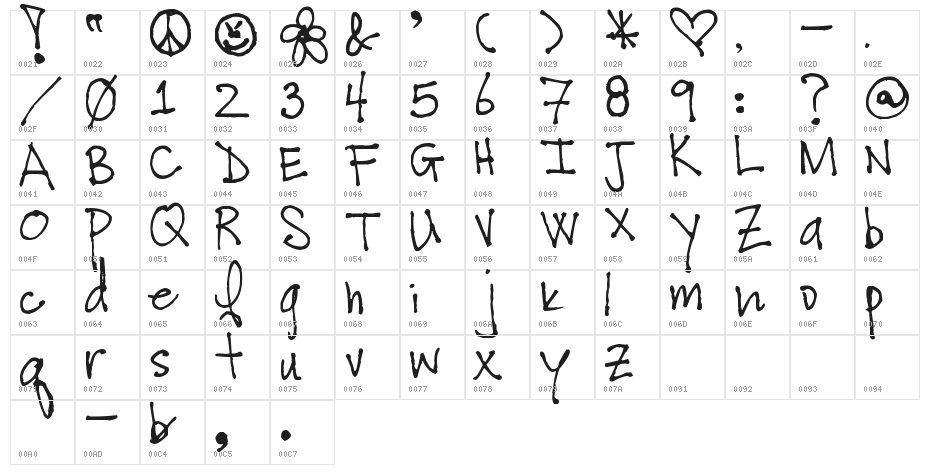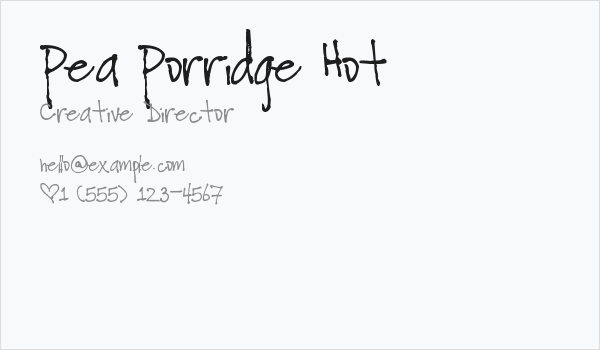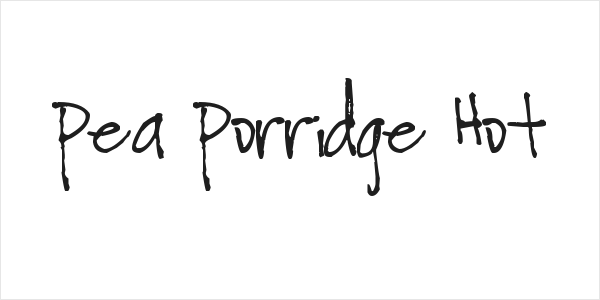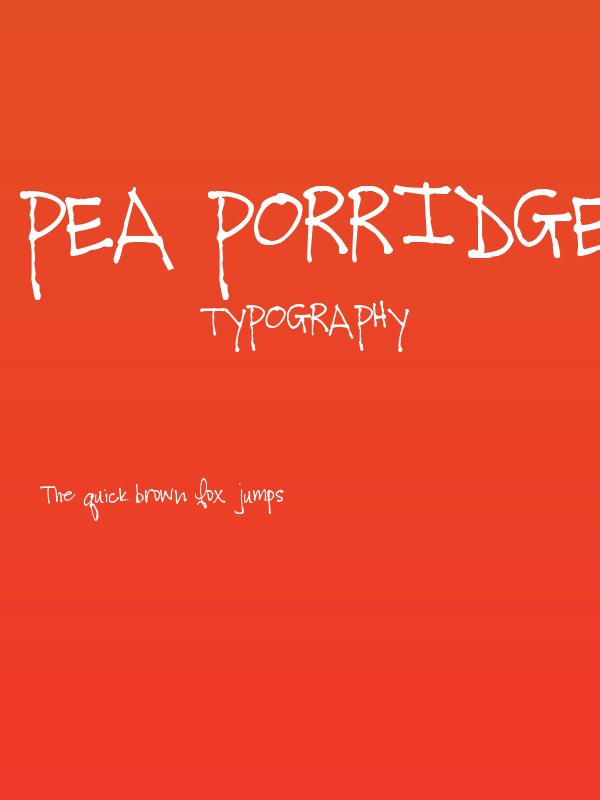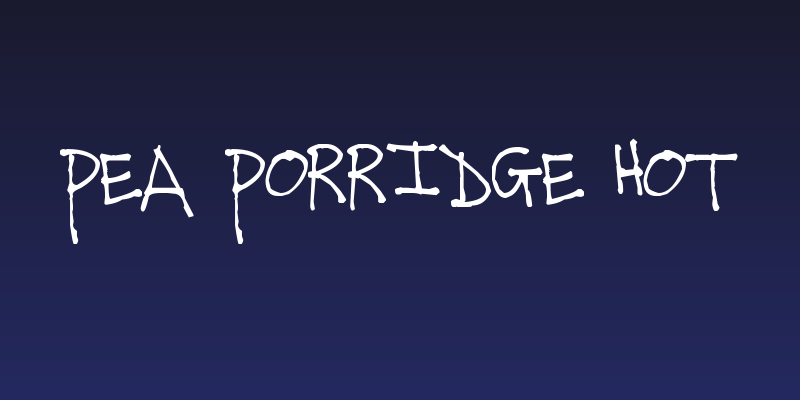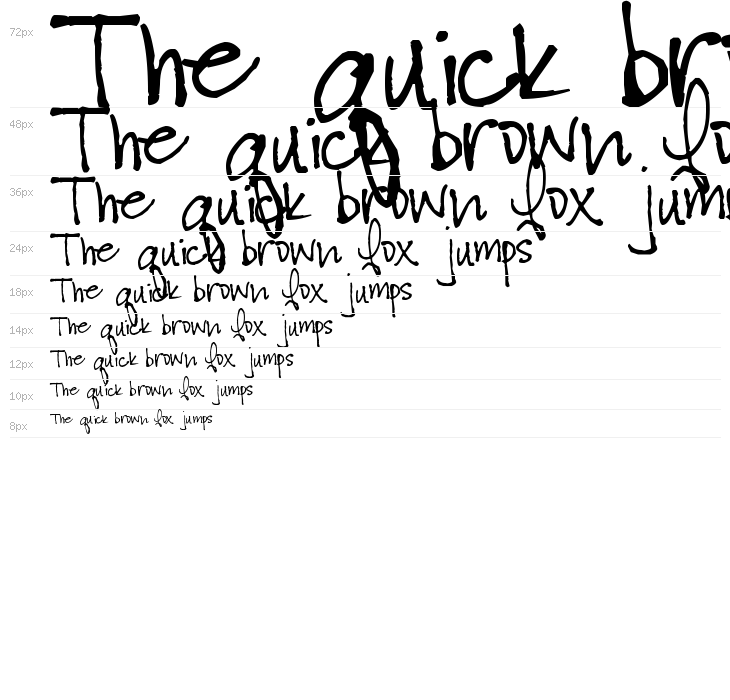
Pea Porridge Hot Font
Pea Porridge Hot Description
This font exudes a playful and informal vibe, characterized by its hand-drawn, whimsical style. The letters are uneven and slightly irregular, giving it a casual and approachable feel. The strokes are varied in thickness, adding to the handwritten aesthetic. The uppercase and lowercase letters maintain a consistent style, with quirky loops and curves that enhance its charm. Numbers and special characters follow the same playful design, making it versatile for creative projects. The overall appearance is reminiscent of doodles or notes jotted down in a sketchbook, perfect for adding a personal touch to any design.
| Proposed Projects | Ideal for children's books, greeting cards, casual invitations, and creative branding projects. |